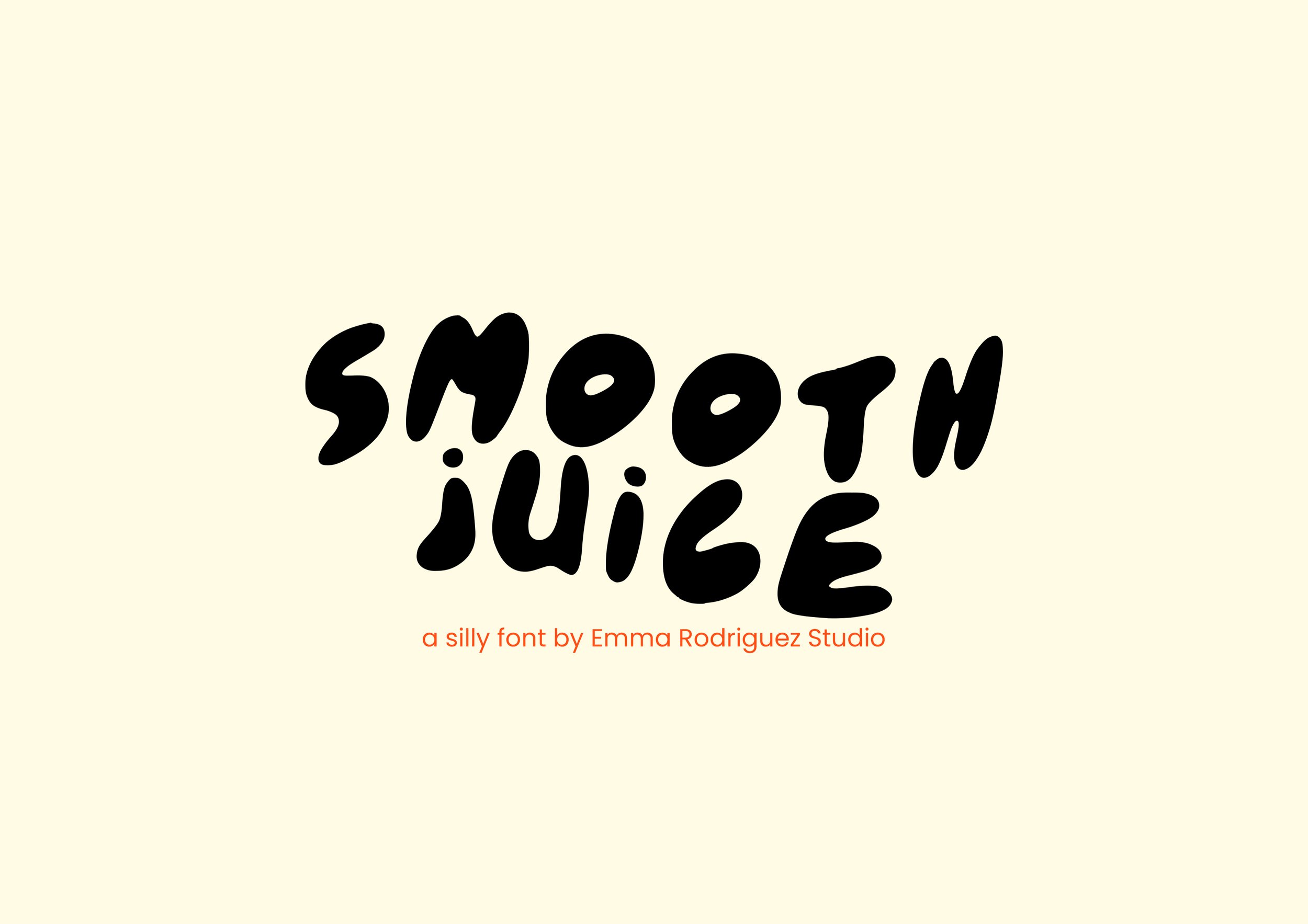
A Silly Billy Cheesy Font Pack | Pack of 4 Fun, Bubbly Typefaces
Dive into the world of whimsy and let your creativity soar with my "A Silly Billy Cheesy Font Back" font pack! This vibrant collection is designed to add a splash of joy to your projects, making every word a celebration of fun and uniqueness.
What's Included:
✨ 4 Playful Fonts: From quirky curls to bouncy bubbles, each font in this pack brings its own personality to the party.
✨ Versatile Styles: Mix and match to create eye-catching combinations that pop!
Perfect for:
✨ Crafty Creations: Elevate your DIY projects with fonts that speak volumes in every stroke.
✨ Social Media Magic: Capture attention on Instagram, Pinterest, and beyond with text that stands out.
✨ Party Invitations: Set the tone for celebrations with fonts that radiate excitement.